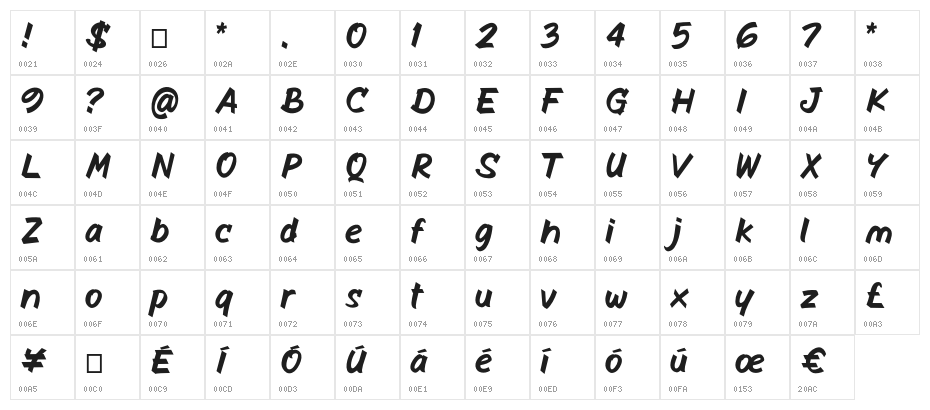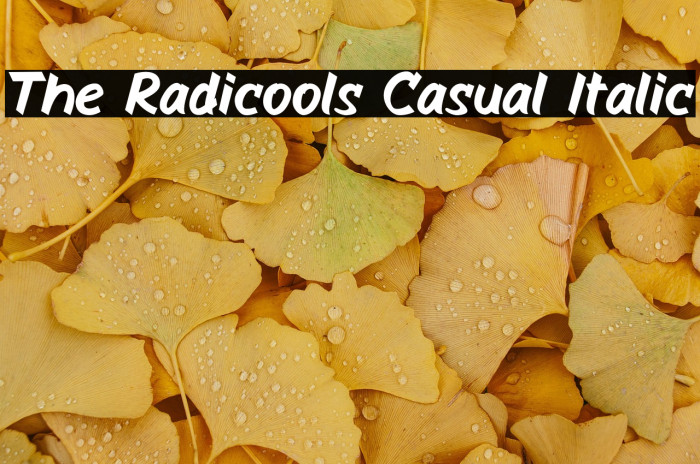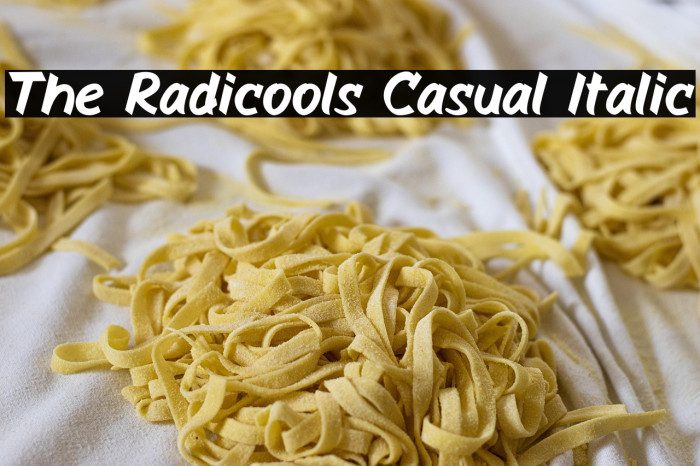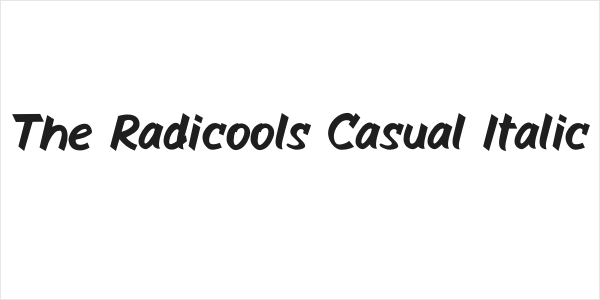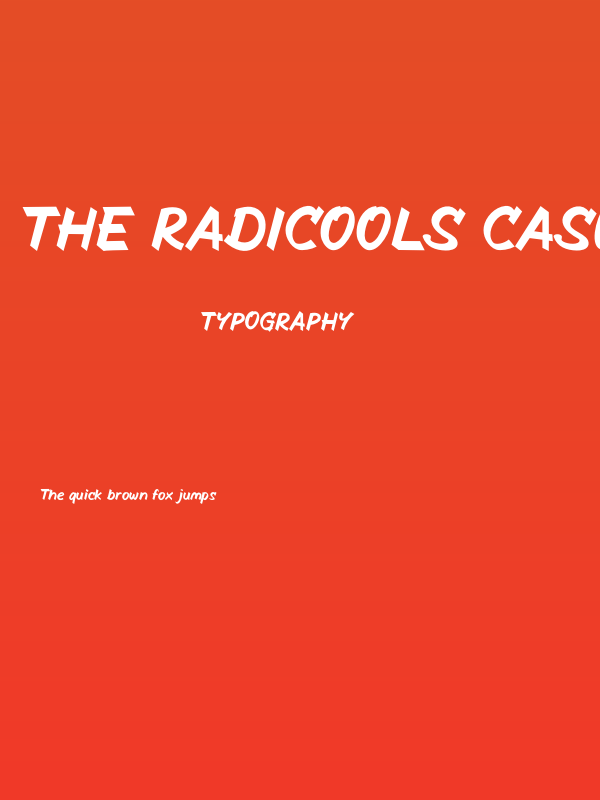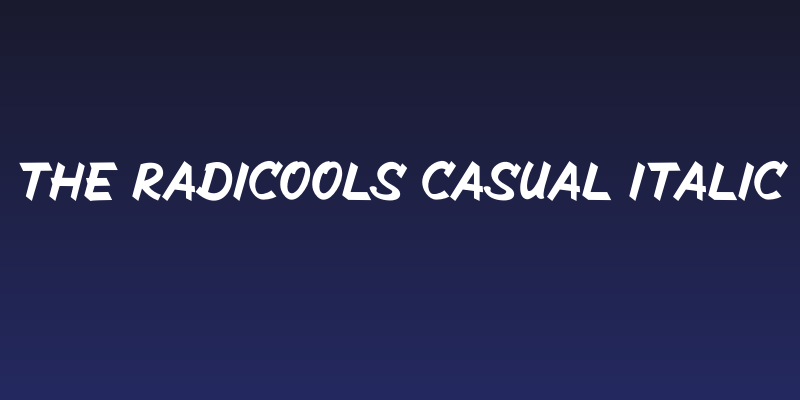
The Radicools Casual Italic Font
The Radicools Casual Italic Description
This font exhibits a dynamic and playful style, characterized by its italicized and bold appearance. The letters are slightly slanted, giving a sense of movement and energy. The strokes are thick and consistent, providing a strong visual impact. The uppercase and lowercase letters maintain a cohesive design, with rounded edges and a casual flair. Numbers and special characters follow the same stylistic approach, ensuring uniformity across all elements. This font is ideal for projects that require a lively and informal touch.
| Proposed Projects | Perfect for branding, posters, and any design needing a fun and energetic vibe. |